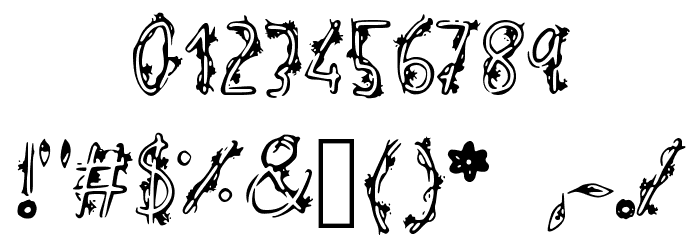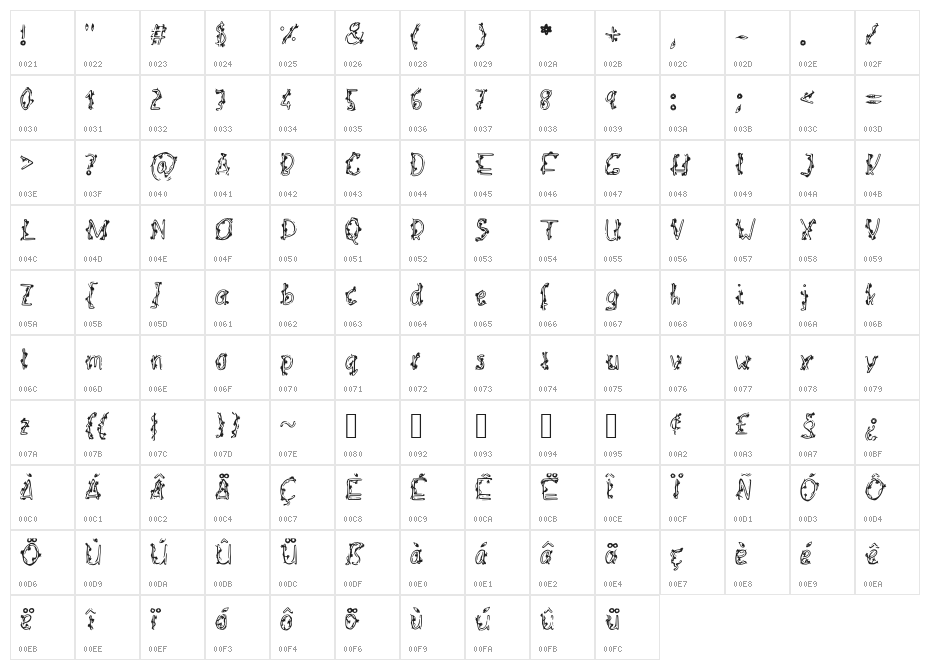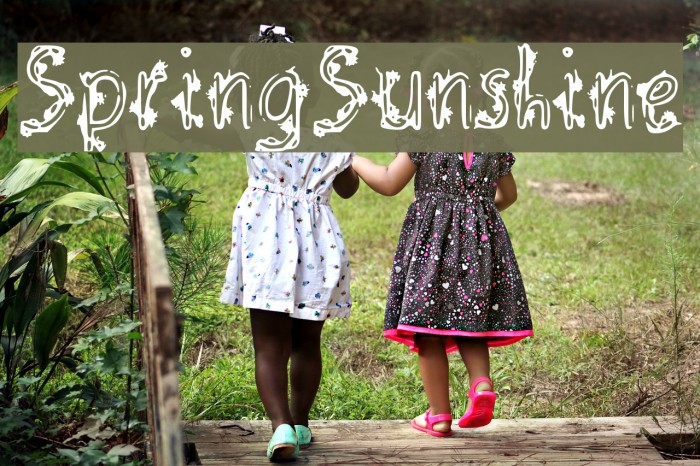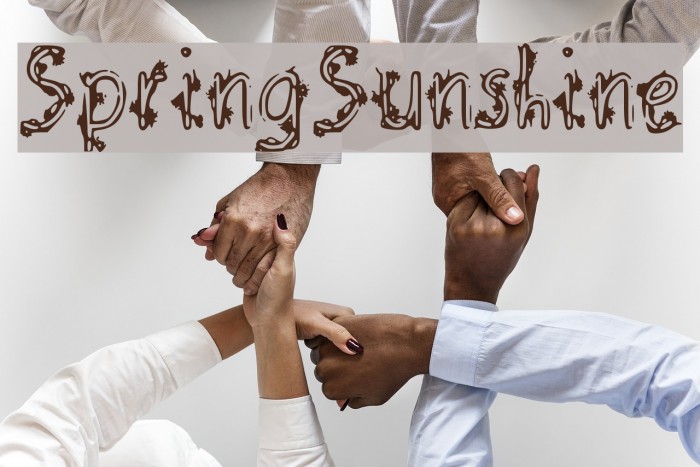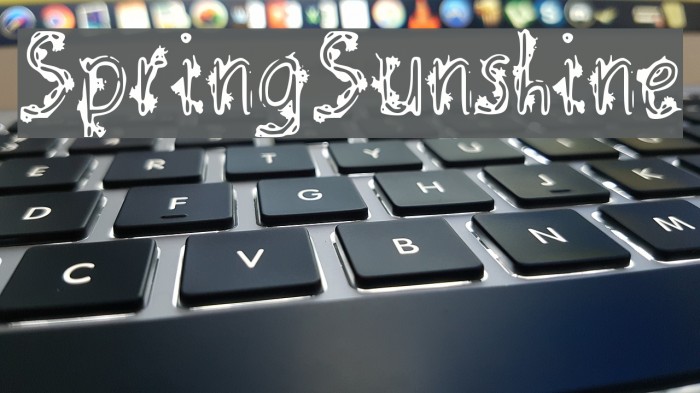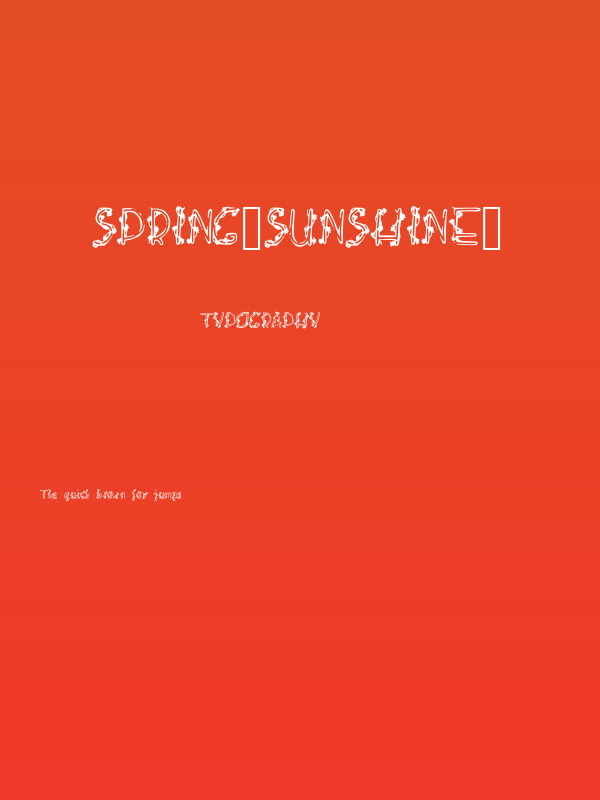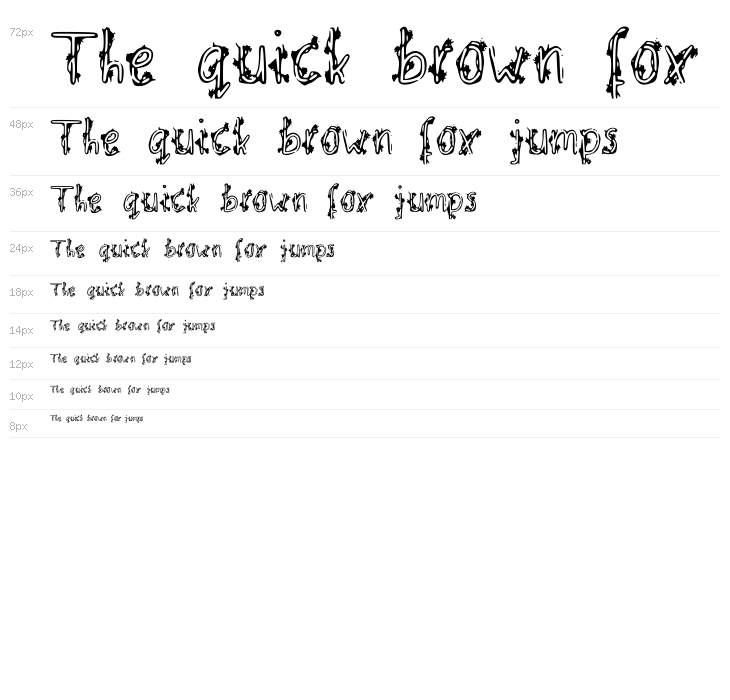
Spring_Sunshine_ Font
Spring_Sunshine_ Description
This font features a whimsical and decorative style, with each character adorned with vine-like embellishments. The letters have a playful and organic feel, reminiscent of nature and growth. The uppercase and lowercase letters maintain a consistent theme, with intricate details that make each character unique. The numbers and special characters follow the same design, ensuring a cohesive look across all elements. This font's artistic flair makes it stand out, perfect for projects that require a touch of creativity and natural elegance.
| Proposed Projects | Ideal for greeting cards, invitations, eco-friendly branding, or any project needing a natural, artistic touch. |